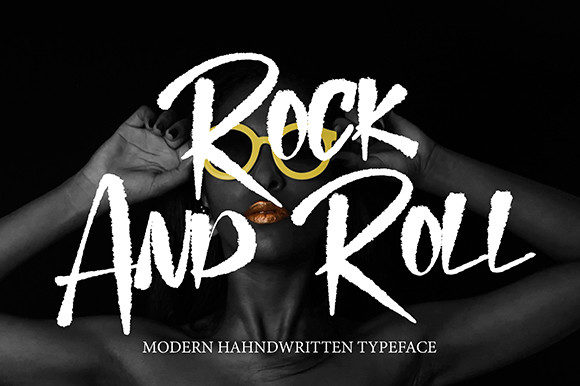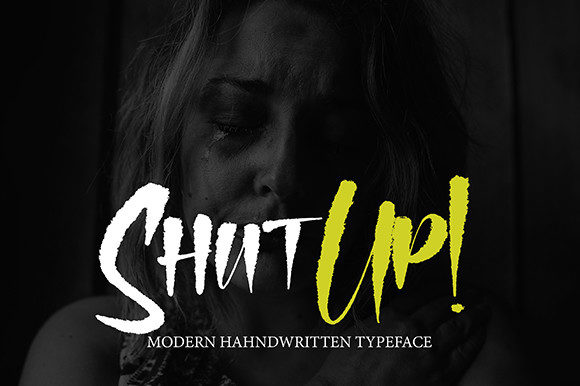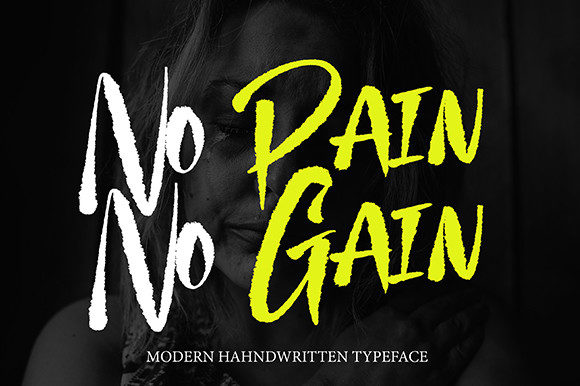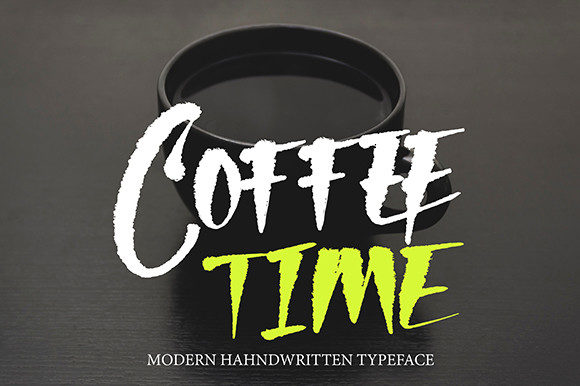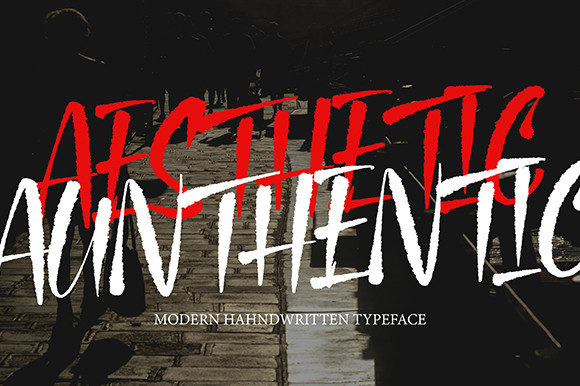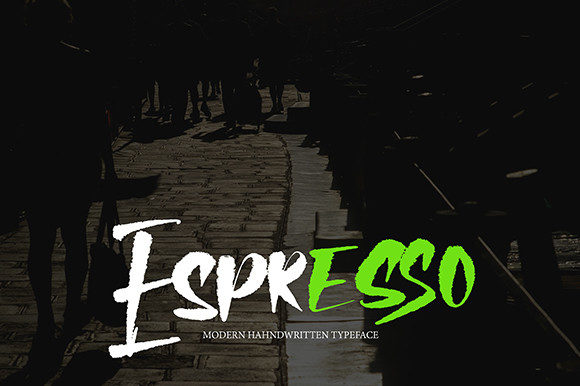
Introduction to Deesirre Font
Deesirre is a cool, brushed and urban styled handwritten font.
This font reads as strong, confident, and dynamic and can add tons of stylish character to your designs .